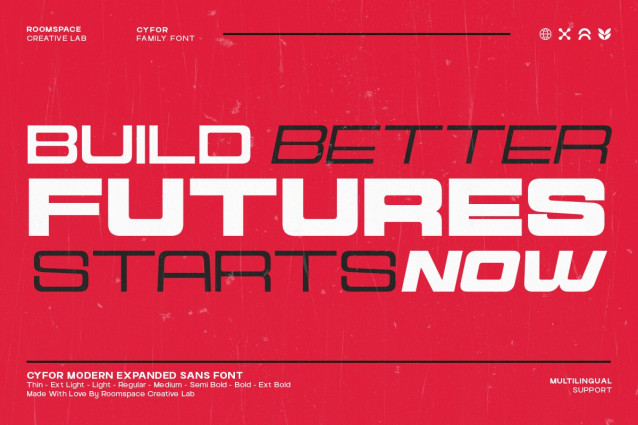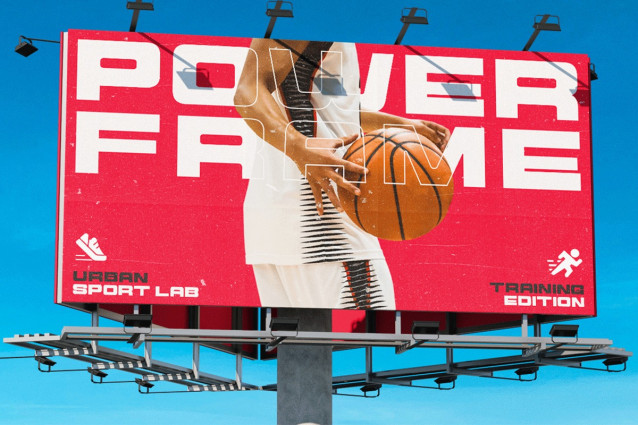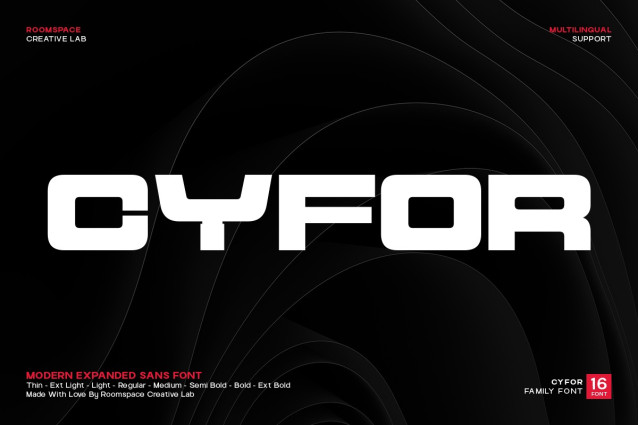
Cyfor Font
Cyfor Font is a modern expanded sans-serif font family crafted with bold futuristic energy. Its wide geometric structure and clean curves bring a powerful visual presence to logos, posters, websites, and tech-driven layouts. Designed with 16 carefully built weights, Cyfor adapts beautifully to modern digital aesthetics from sci-fi interfaces to minimalist branding systems.